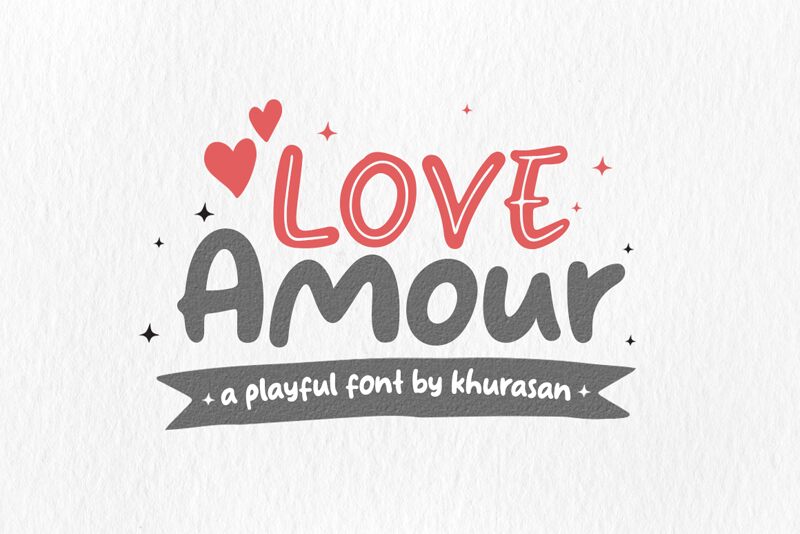
Love Amour Blank
Introducing Love Amour Blank, a bold cartoon font designed by Khurasan. Perfect for creating whimsical logos, greeting cards, posters and other fun projects. Add a touch of love with this eye-catching display font!